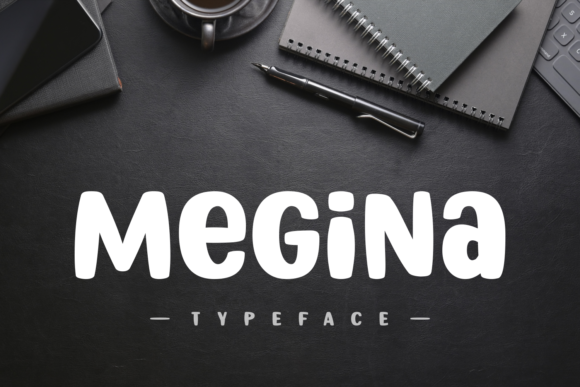
Behold Megina Font, the display font that captivates hearts and ignites creativity! With its bold, thick letters, Megina commands attention, transforming your designs into mesmerizing works of art. Whether you're a social media maven seeking Instagram-worthy fonts or a crafting enthusiast searching for calligraphy scripts, Megina is your muse.
Picture your wedding invitations adorned with Megina's elegant strokes, carrying the essence of your love story. Its stylish characters dance across the page, inviting guests to a celebration filled with joy and romance. Unleash your inner artist and create DIY projects that radiate personality, using Megina to add a touch of sophistication to your handmade cards, posters, and home décor.
Megina is a versatile font, adapting seamlessly to a multitude of creative endeavors. Its bold presence lends itself effortlessly to logos and branding, capturing the attention of potential customers and leaving a lasting impression. Embark on a journey of creative expression as you weave your words together with Megina's enchanting curves.
Dare to be original, let Megina's bold strokes ignite your imagination, and witness the transformation of your creative visions into captivating masterpieces. Join the legion of artists, designers, and creatives who have embraced Megina's allure, propelling their work to new heights of excellence.
Elevate your digital presence, ignite passion in your designs, and turn your creative ideas into tangible expressions of beauty with Megina Font. The possibilities are endless, awaiting your artistic touch. Seize the opportunity to make a statement, capture hearts, and leave an indelible mark on the world with Megina by your side.